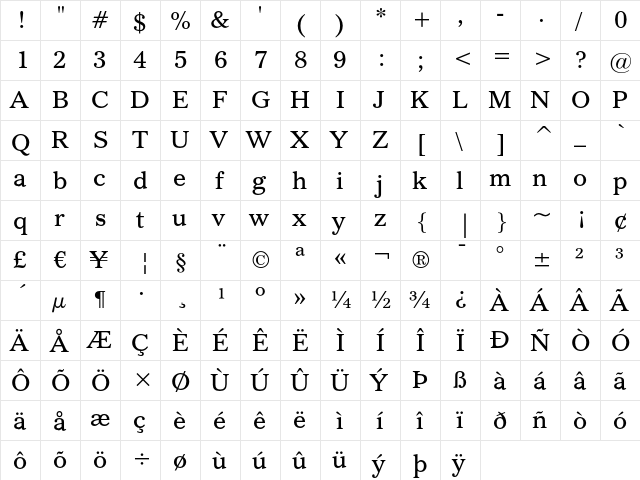
Imperial Regular
Design Context for Imperial Typeface
Imperial takes a measured approach to typography — its balanced proportions and neutral character make it a reliable workhorse for both digital and print work.